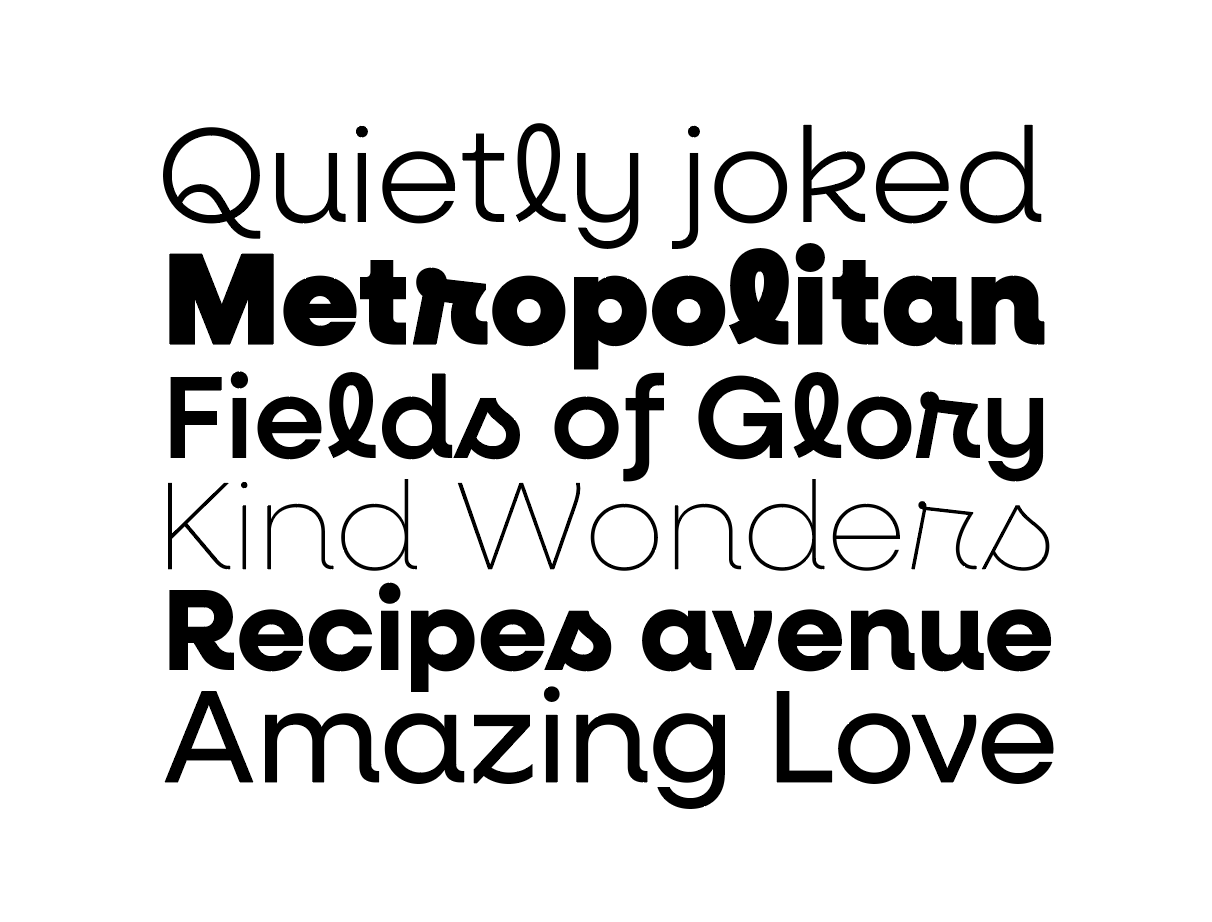
Geometric sans and script font
A quick look at some rough type samples of my new font coming soon... a hybrid of geometric sans and script typefaces.